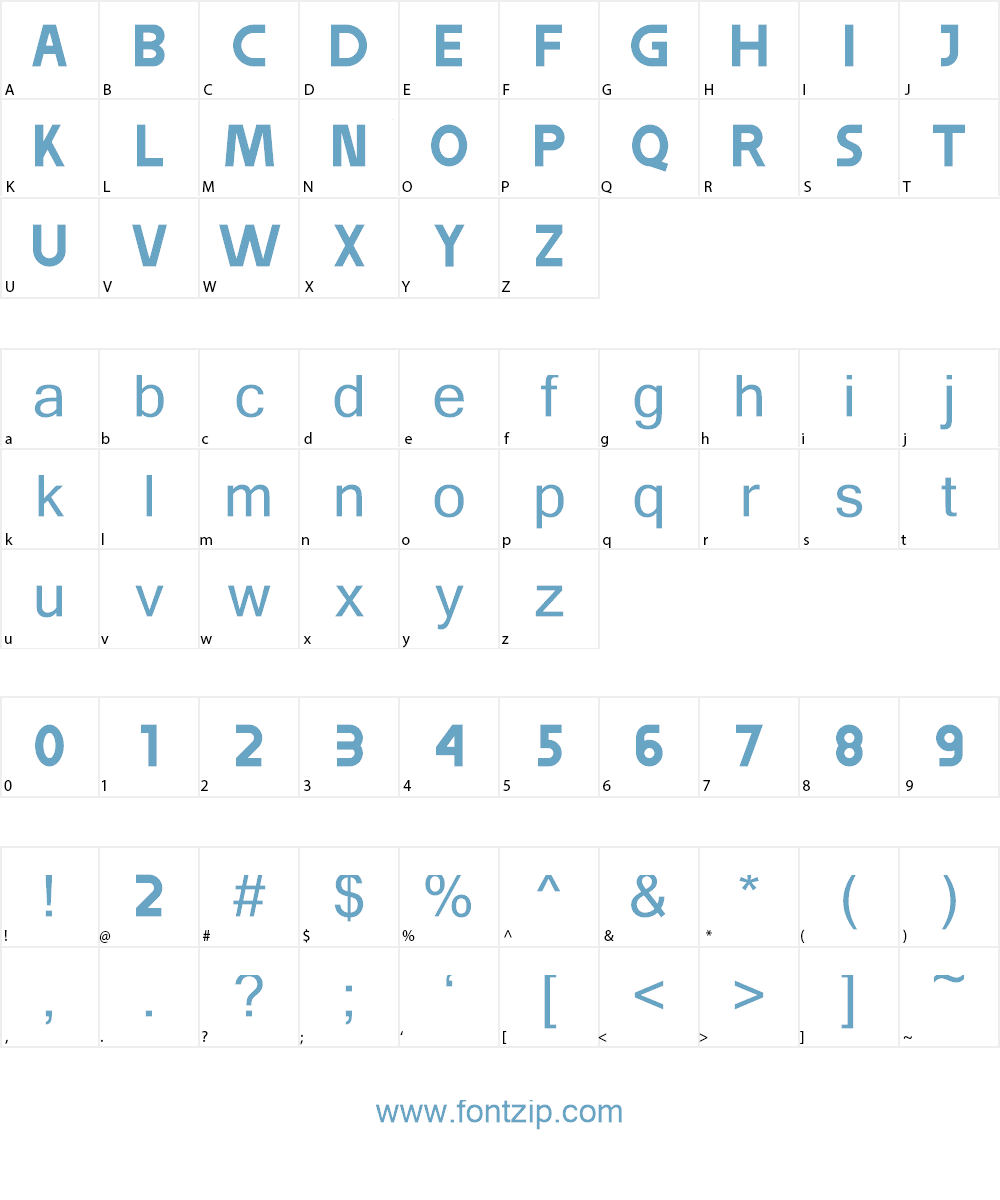
GALGATOR - a font that is thick and has strong elements like a superhero suitable for designs that require thick and strong fonts
GALGATOR will be perfect for posters, t-shirts, book covers, and packaging
- Alternate